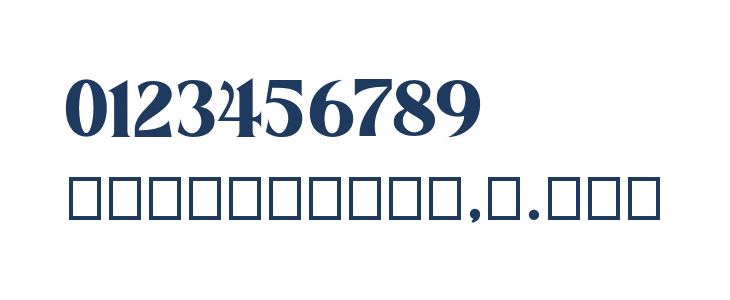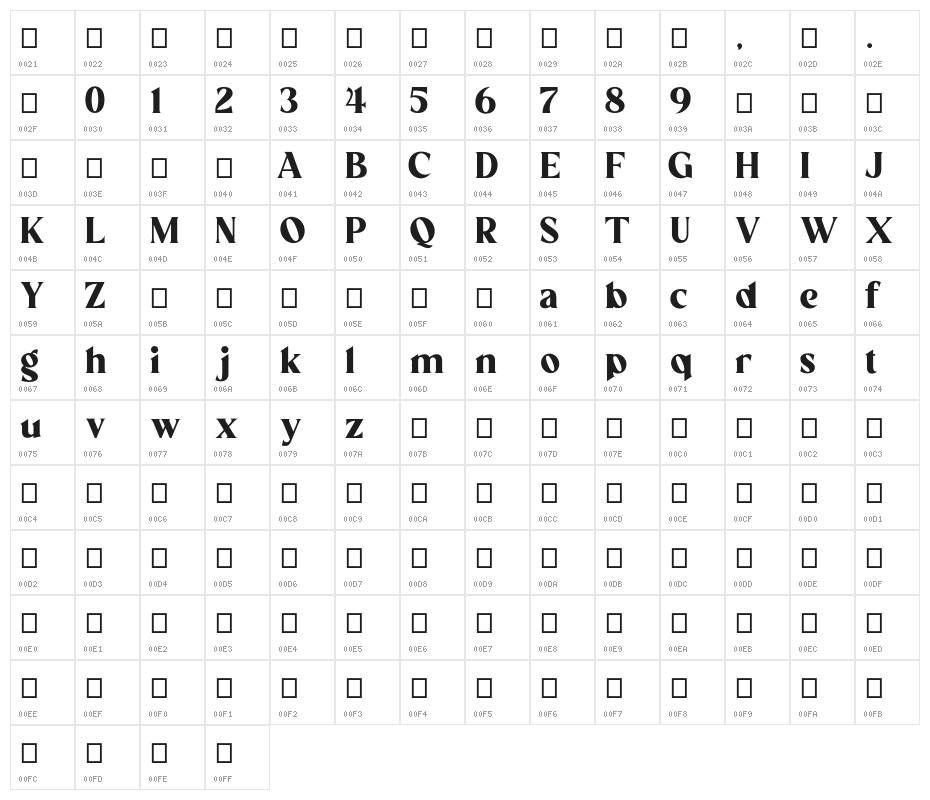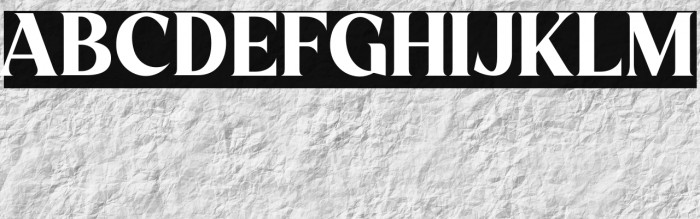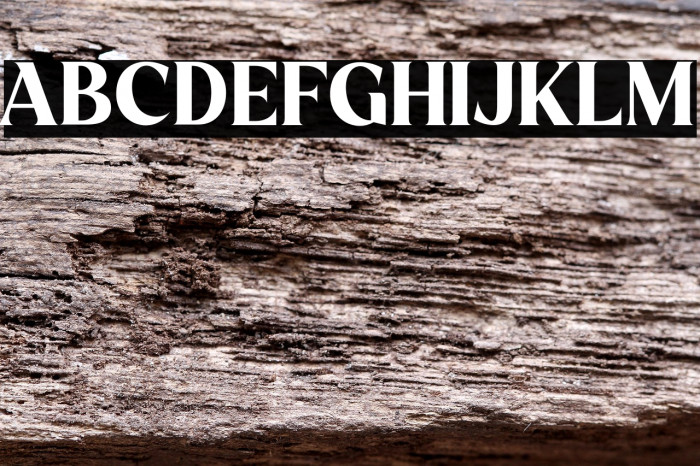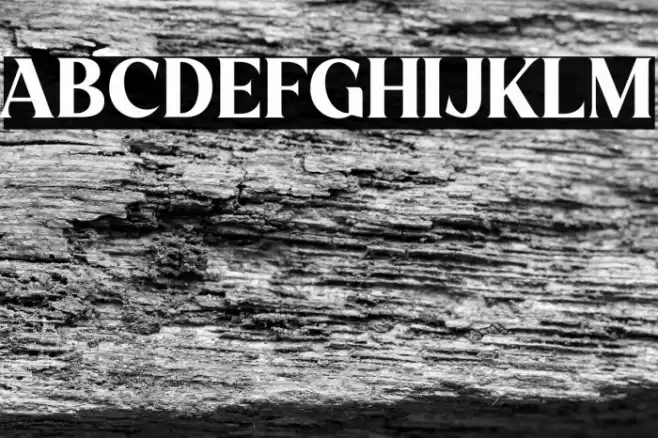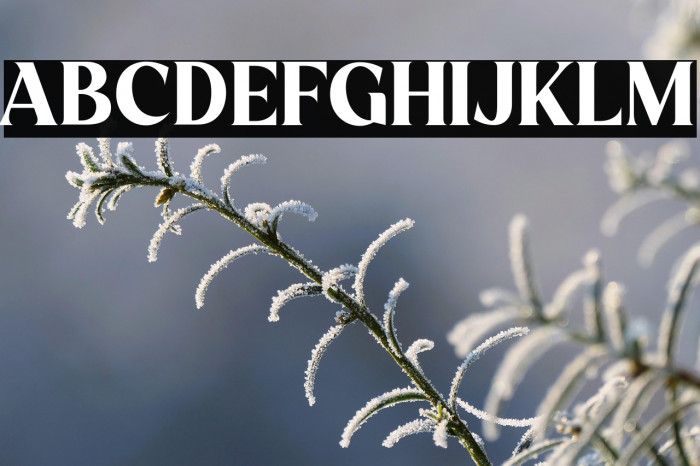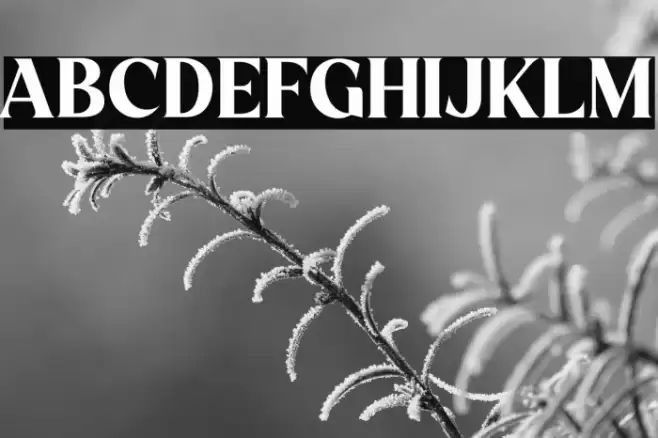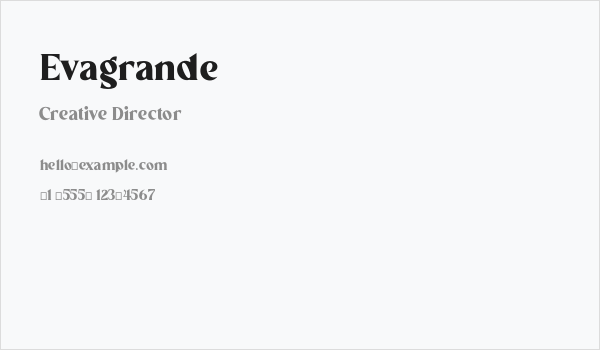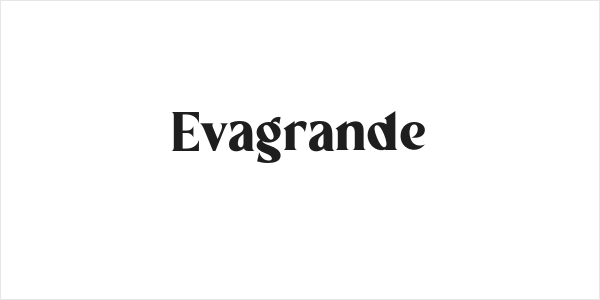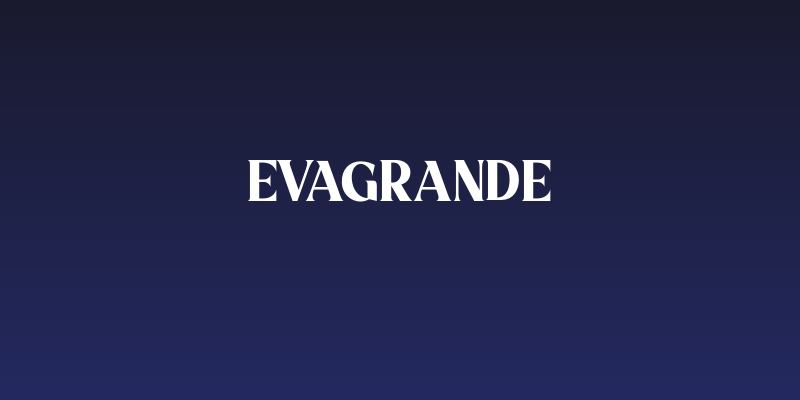
Evagrande Font
Evagrande Description
This font features a bold and striking design with high contrast between thick and thin strokes, giving it a dramatic and impactful appearance. The uppercase letters are characterized by strong, angular serifs, while the lowercase letters maintain a consistent style with rounded forms and pronounced curves. The numerals are distinct and bold, matching the overall robust aesthetic of the typeface. The special characters are designed to complement the alphabet with similar weight and style, ensuring a cohesive look across all text elements. This font's unique style makes it suitable for projects that require a strong visual presence.
Proposed ProjectsIdeal for branding, headlines, posters, and editorial design where a strong, impactful font is needed.